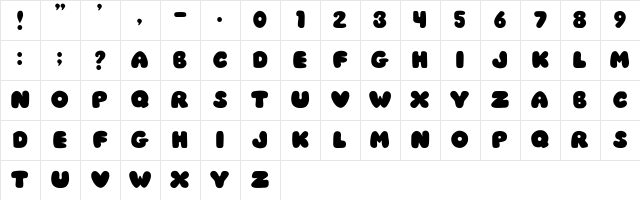
Designer: Jeri Ingalls
Design Context for JI Chubby Caps
JI Chubby Caps is a composed and adaptable typeface that performs quietly and consistently across a wide range of design contexts.